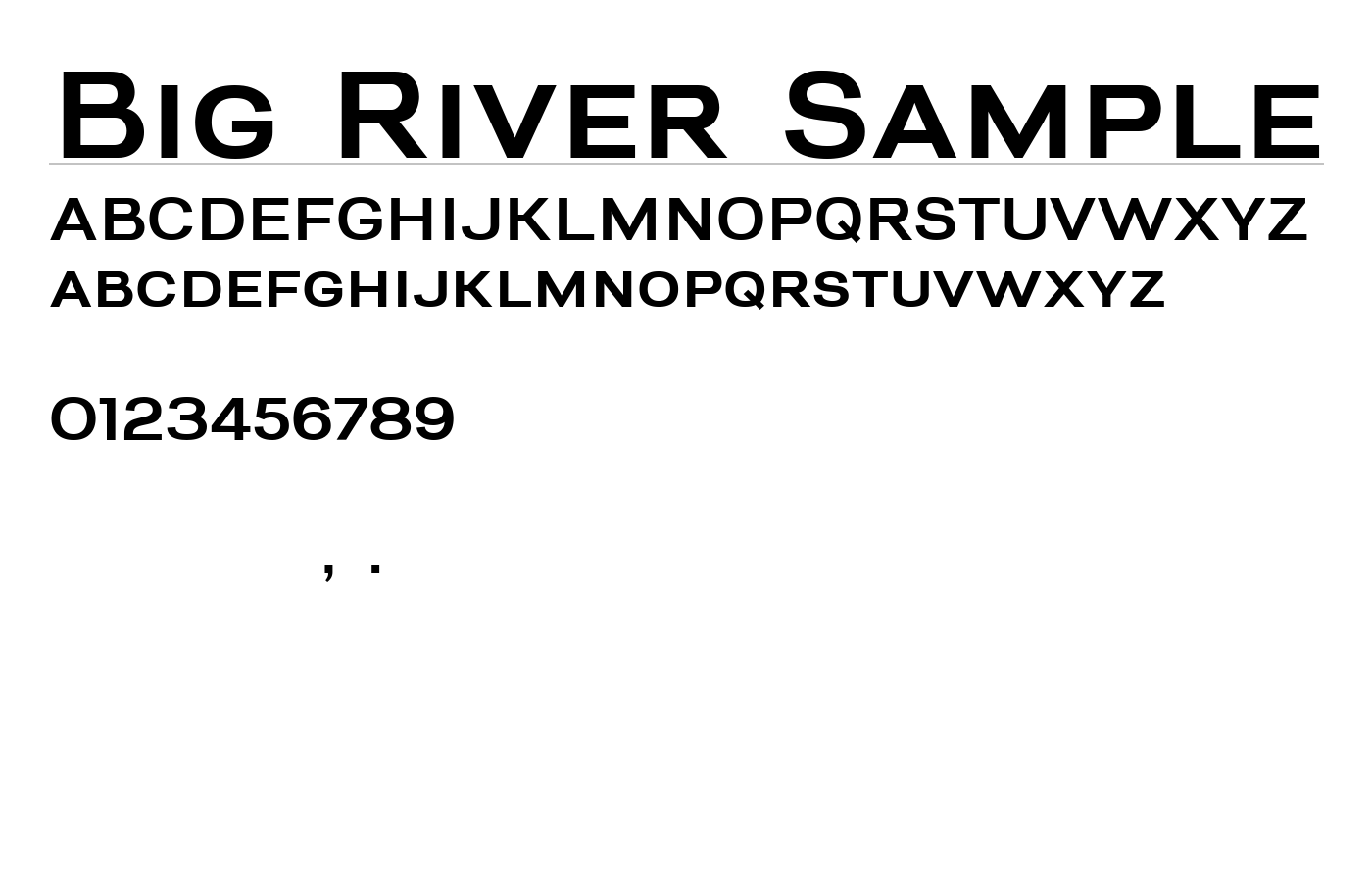
Big River Sample Font is a clean and modern sans serif typeface characterized by its bold weight and straightforward geometric shapes. With its strong, even strokes and ample letter spacing, it offers excellent readability and a sturdy, professional presence, making it ideal for headlines, logos, and branding that require a confident yet approachable tone. This font works well in both digital and print contexts where clarity and impact are essential.
Big River Sample Font
About Big River Sample Font
| Font family | Big River Sample Font |
| Designer | Ana Parracho |